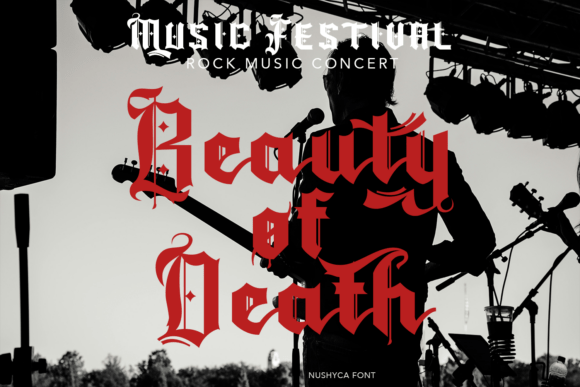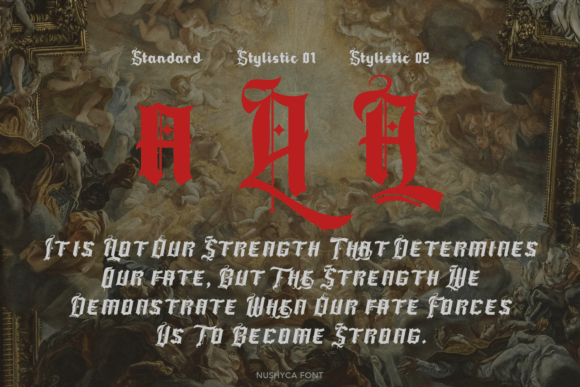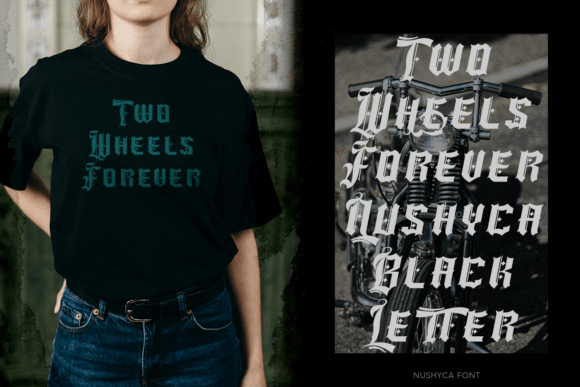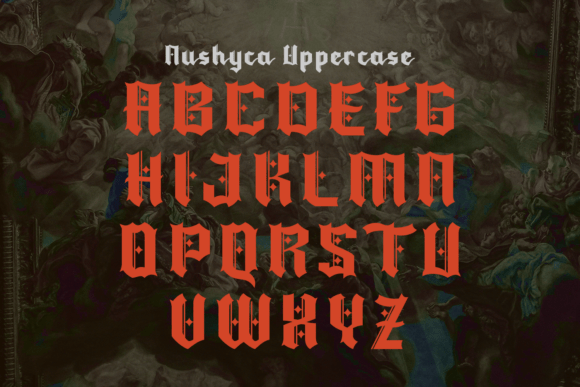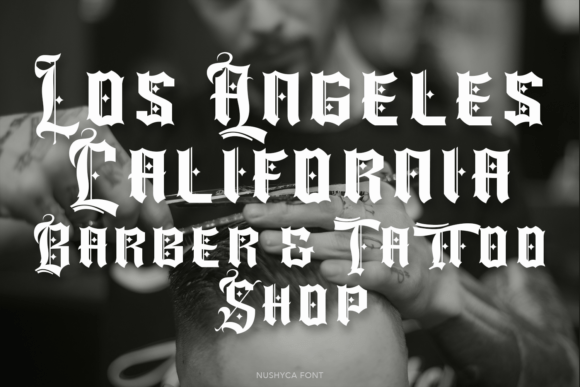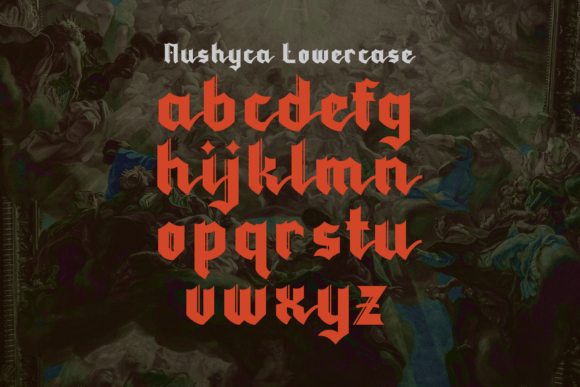
Introduction to Nushyca Font Font
Fonts play a crucial role in design, and the Nushyca Font font is a typeface that brings both character and versatility to any project. Whether you’re working on a branding project, a website, or a print design, the Nushyca Font font offers a unique style that can elevate your work.
Nushyca is a new Blackletter script with classy, elegant and vintage feel.
To create the beautiful combination, just mix the alternative and ligature glyphs You can also combine this font with other types of fonts according to your needs.
Key Features of Nushyca Font Font
Why Choose Nushyca Font Font?
The Nushyca Font font is more than just a typeface – it’s a design tool that helps you communicate your message with style and clarity. Its unique character set and versatile design make it suitable for a wide range of applications, from elegant invitations to bold headlines.
With its carefully crafted letterforms and balanced proportions, the Nushyca Font font ensures readability and visual appeal across all mediums.
What makes Nushyca Font font special?
The Nushyca Font font stands out with its unique design, exceptional readability, and versatility across various design applications.